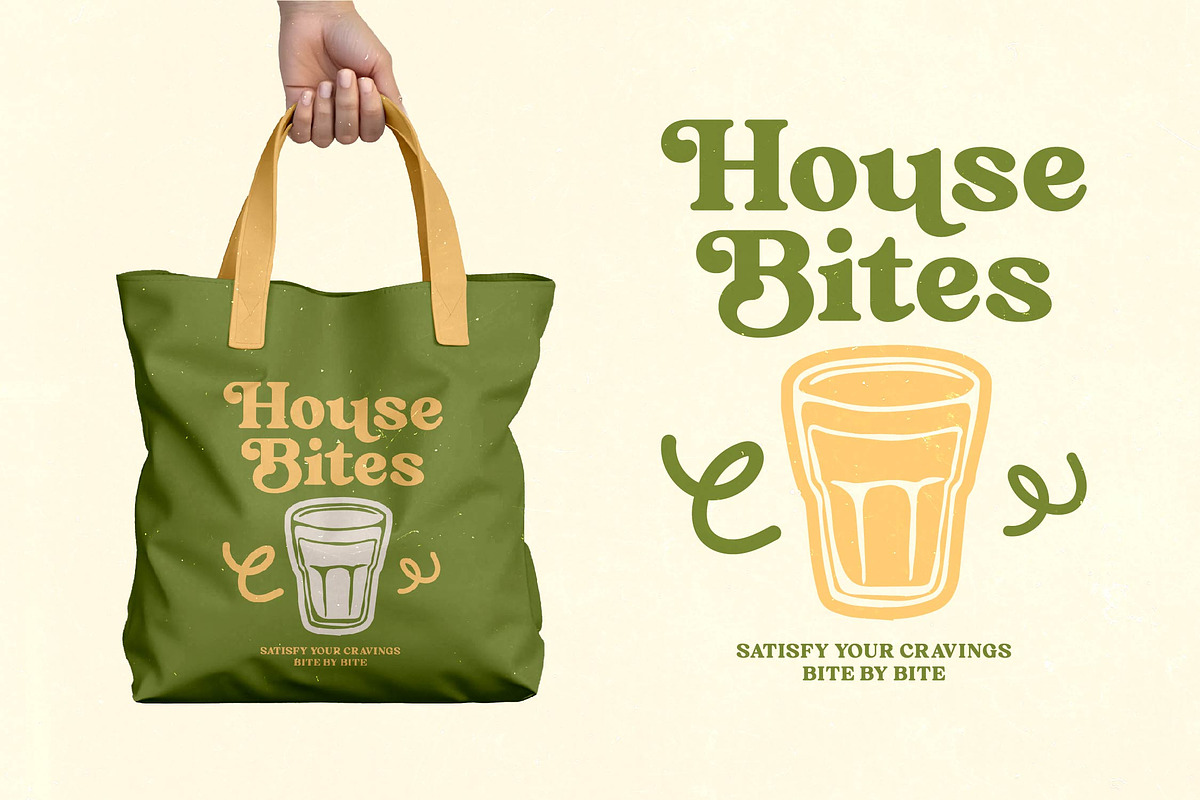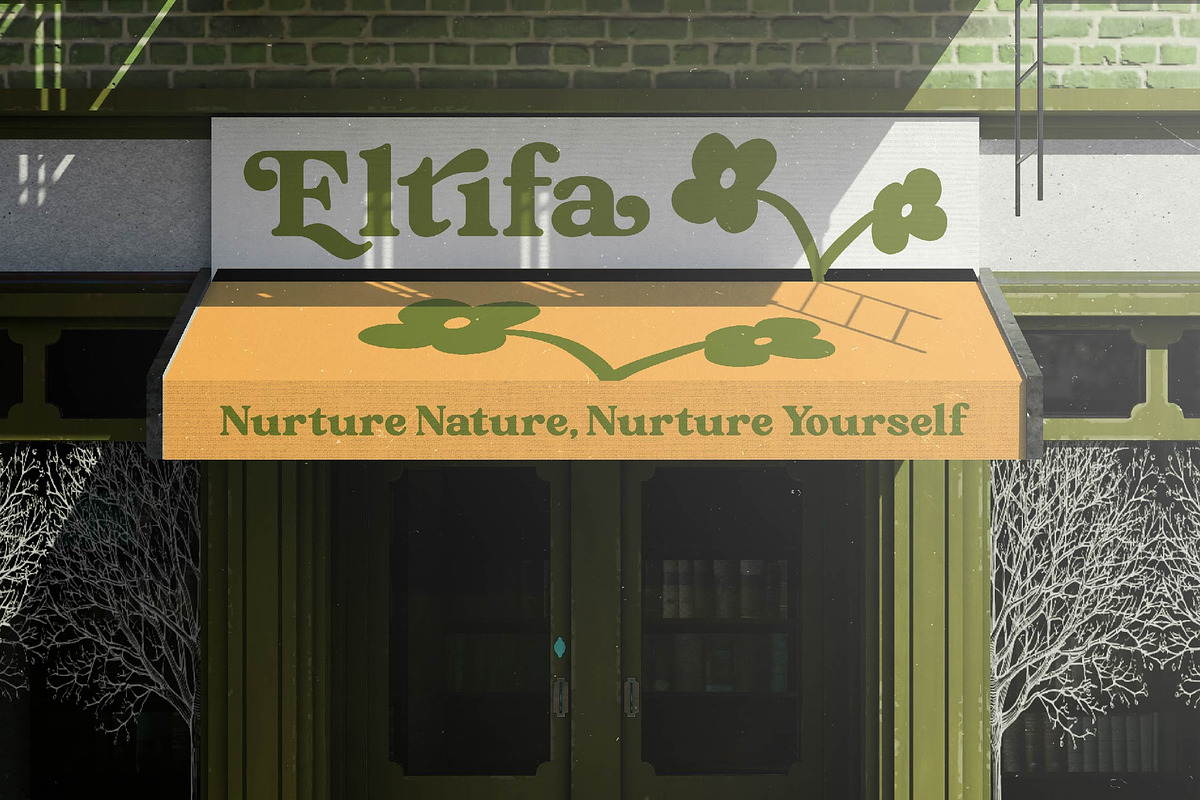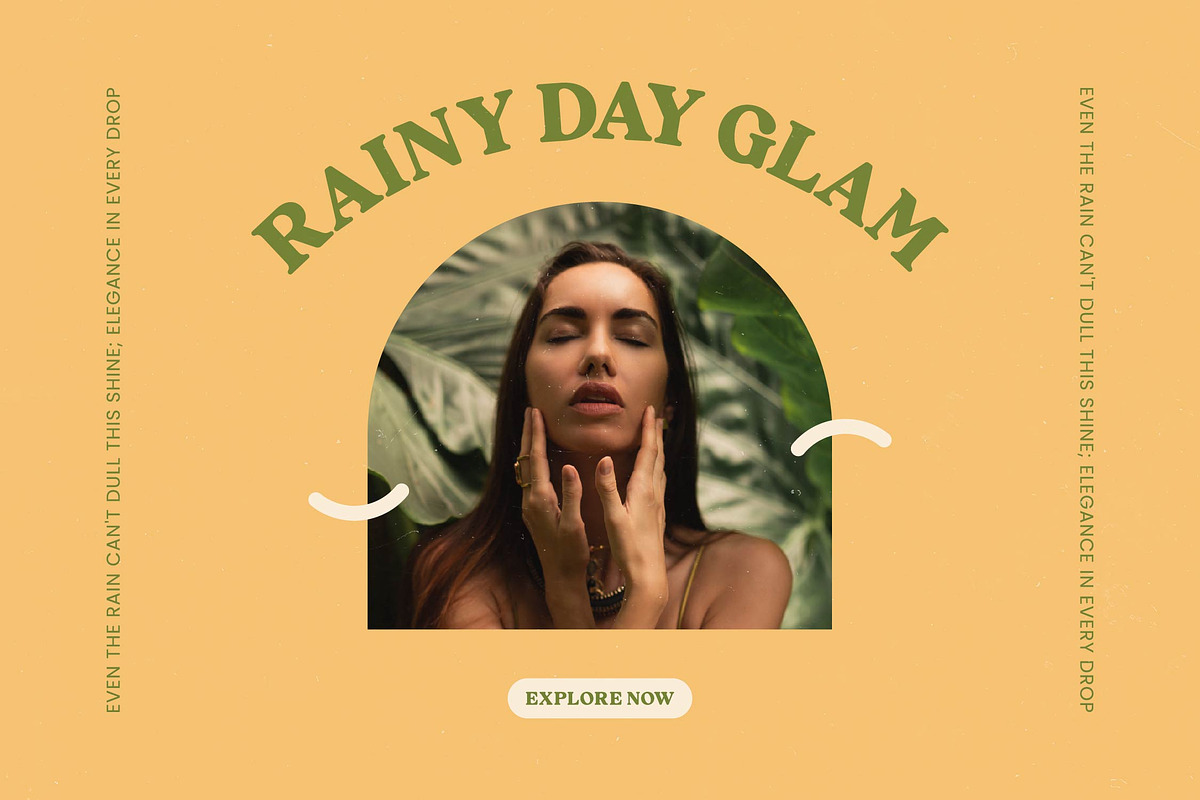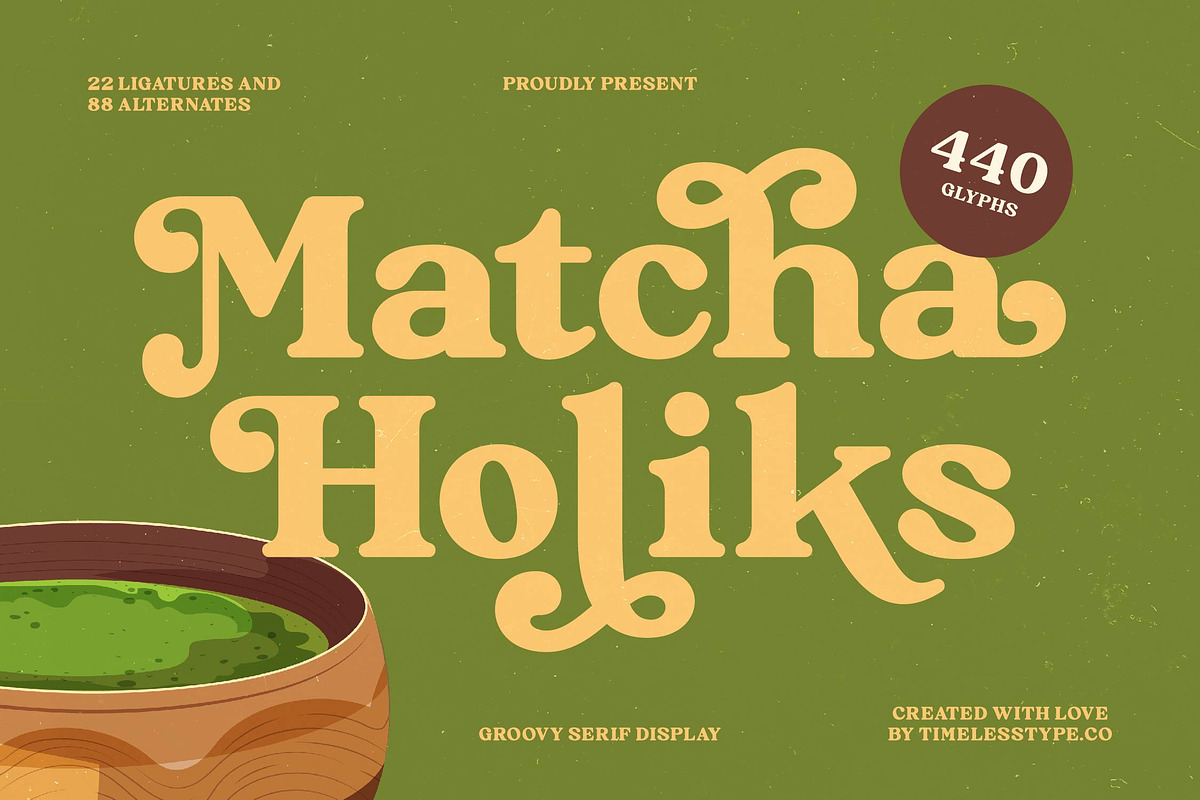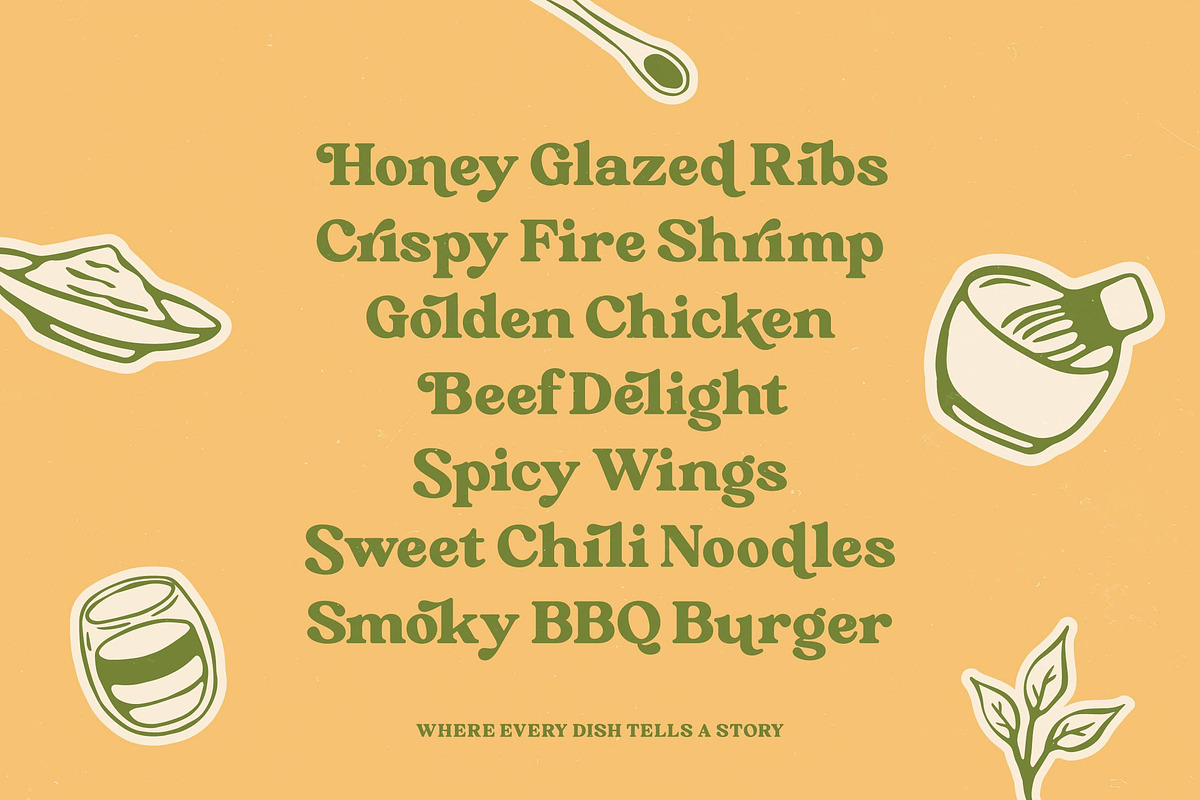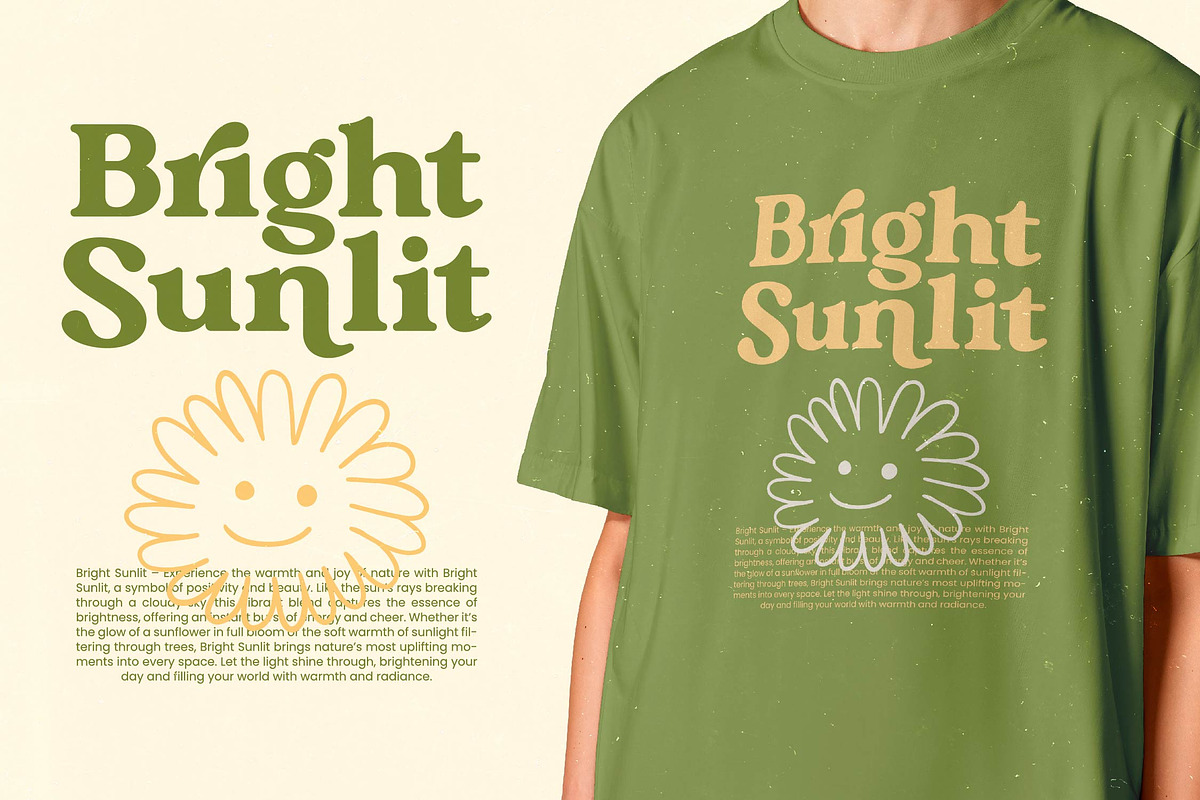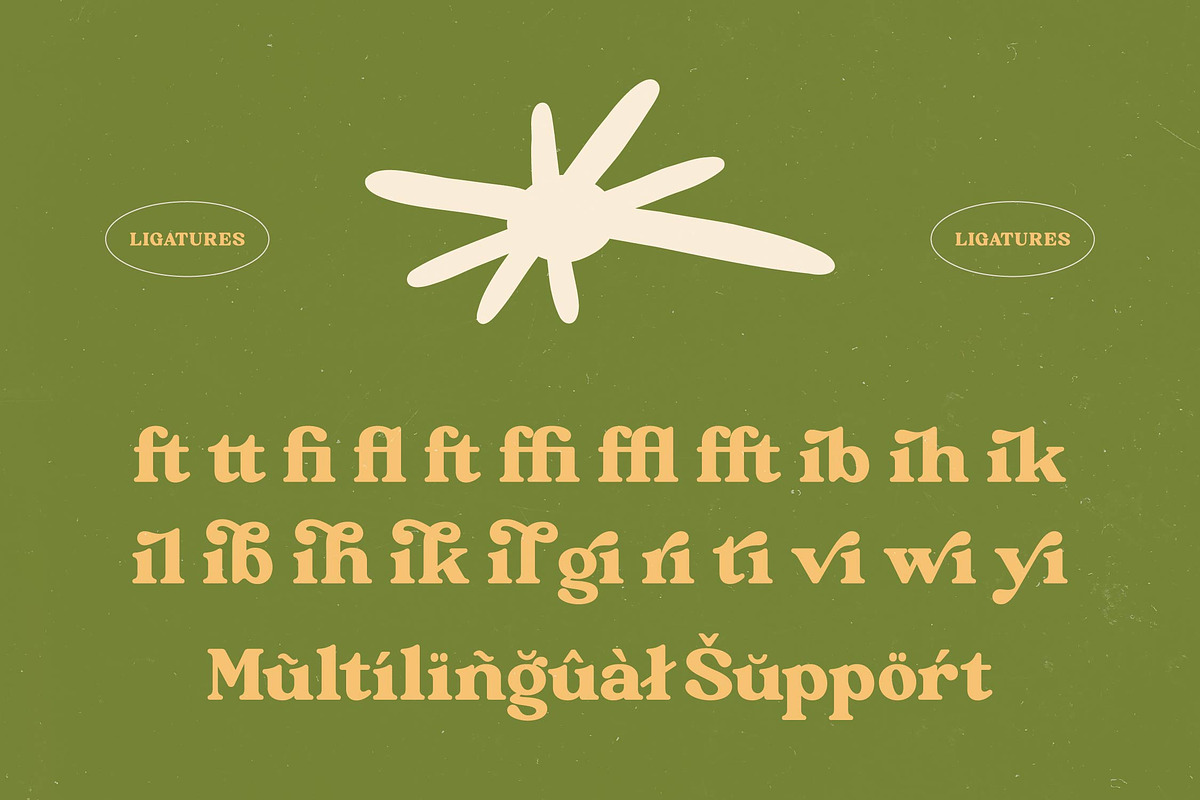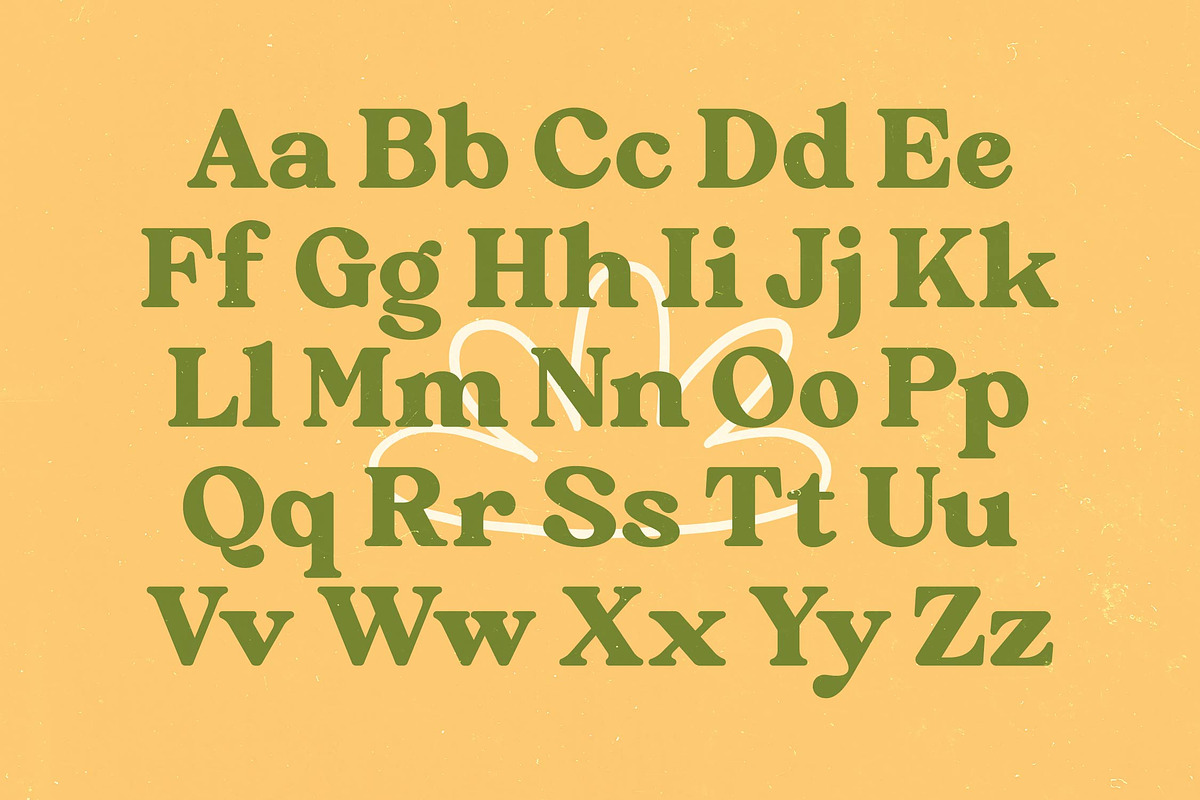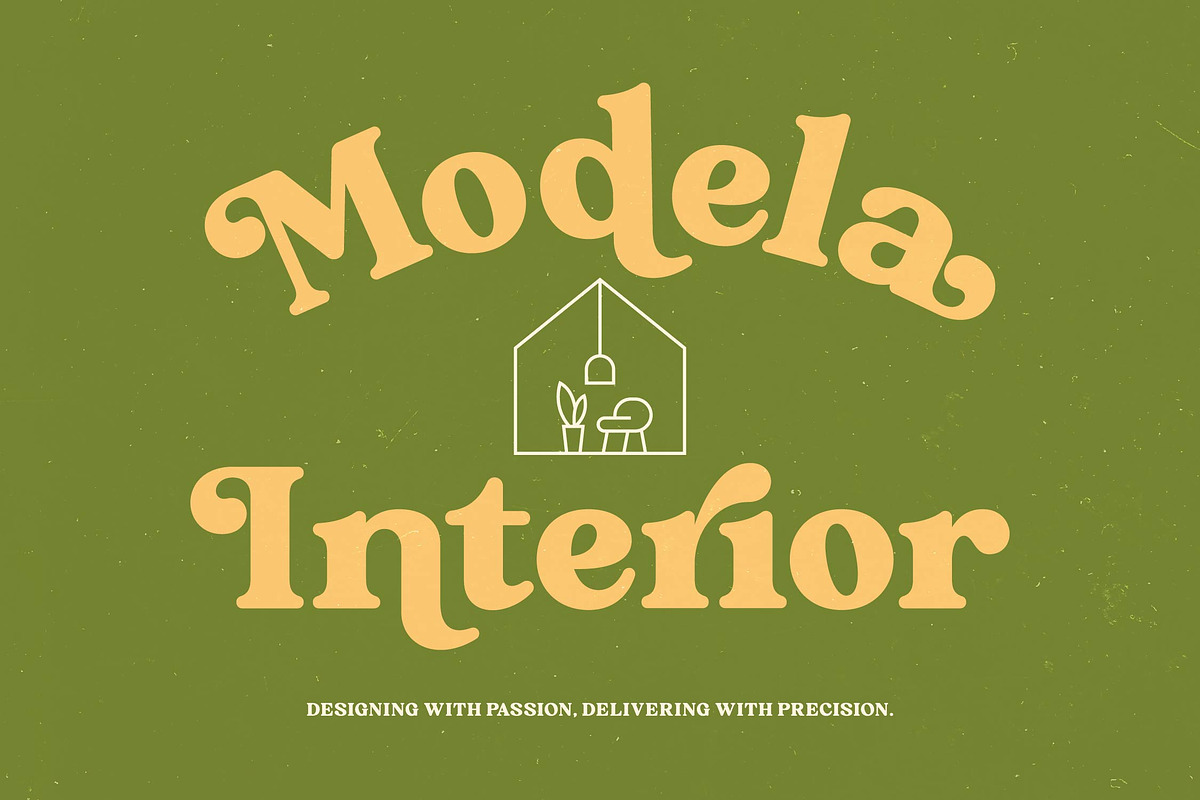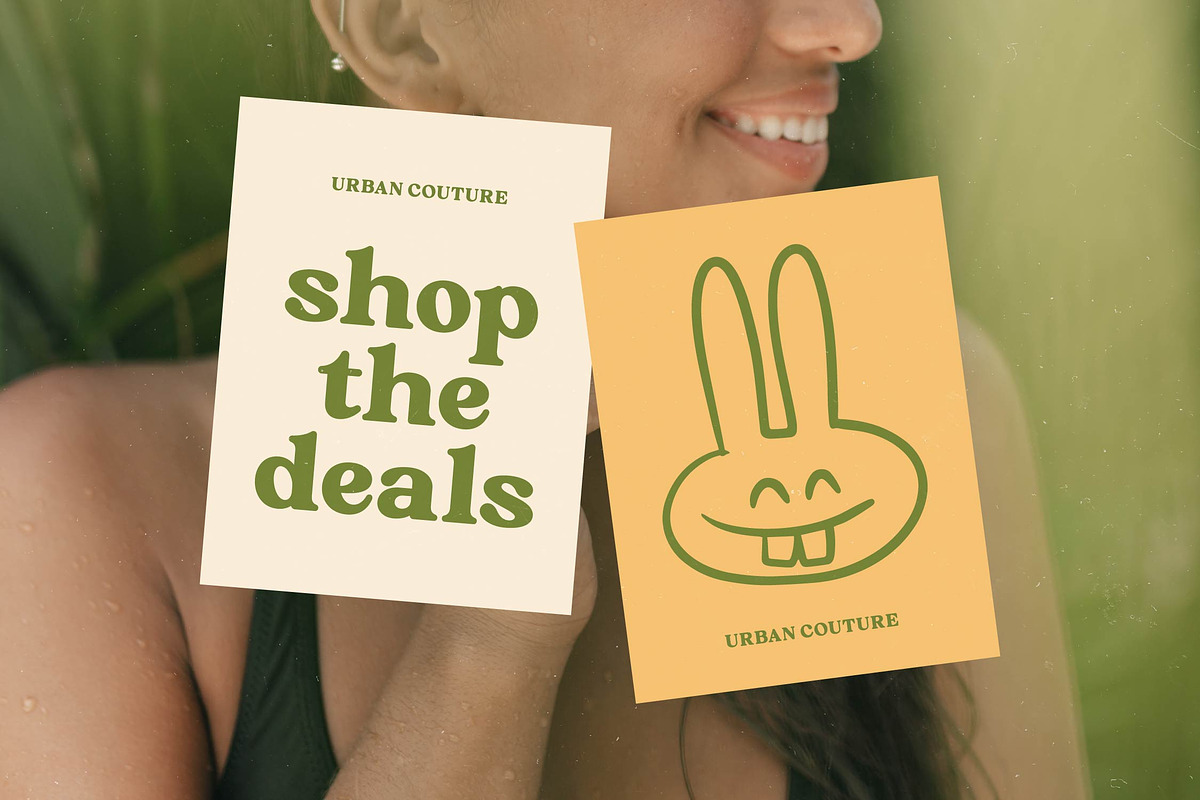
Matcha Holiks Groovy Serif Font
Experience the soulful rhythm of Matcha Holiks, a typeface that captures the essence of a serene morning ritual with a groovy, nostalgic twist. It is designed to infuse your creative projects with a sense of organic warmth and effortless charm.
Inspired by the fluid motions of pouring tea and the psychedelic curves of the late 1960s and 70s, this font bridges the gap between vintage poster art and contemporary minimalism. Every stroke reflects a balanced harmony between structured stems and whimsical, swirling terminals that dance across the page.
This modern serif display is more than just a set of letters; it is a tool for luxury typography that demands attention without shouting. With its high-contrast serif design, it functions as a premium editorial font that delivers maximum branding impact for any creative seeking a unique visual voice.
Perfectly aligned with the current modern serif trend, this typeface meets the demand for editorial display fonts that feel both custom and curated. It stands at the forefront of character-driven typography, offering a distinct personality that differentiates your brand from the sea of generic sans-serifs.
Whether you are crafting a standout logo design or building a comprehensive branding system, this font excels in diverse environments. It is the ideal choice for high-end editorial layouts, organic packaging for artisanal goods, romantic wedding stationery, or avant-garde fashion lookbooks.
Boasting an expansive library of 440 glyphs, this typeface includes a rich collection of ligatures and alternates that allow for endless customization. The inclusion of decorative swashes and full multilingual support ensures that your designs remain versatile with access to a wide array of international characters.
Numerals
Punctuations (OpenType Standard)
Accents (Multilingual Characters)
Ligatures and Alternative Style Stylistic Set